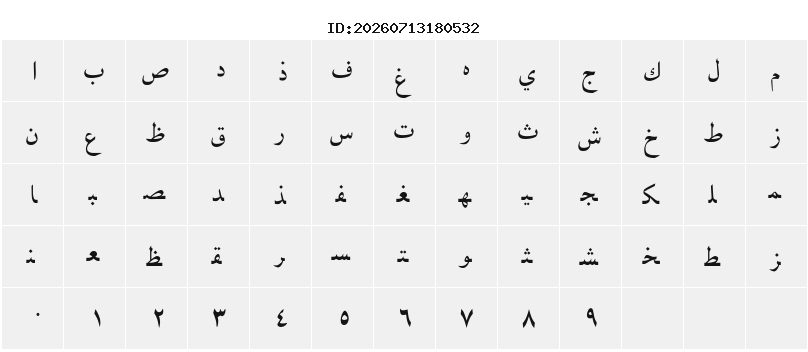
About Baghdad.ttf
Baghdad.ttf is a modern, elegant sans-serif font designed for ultimate readability and visual harmony. Perfect for branding, headlines, web design, and print materials.